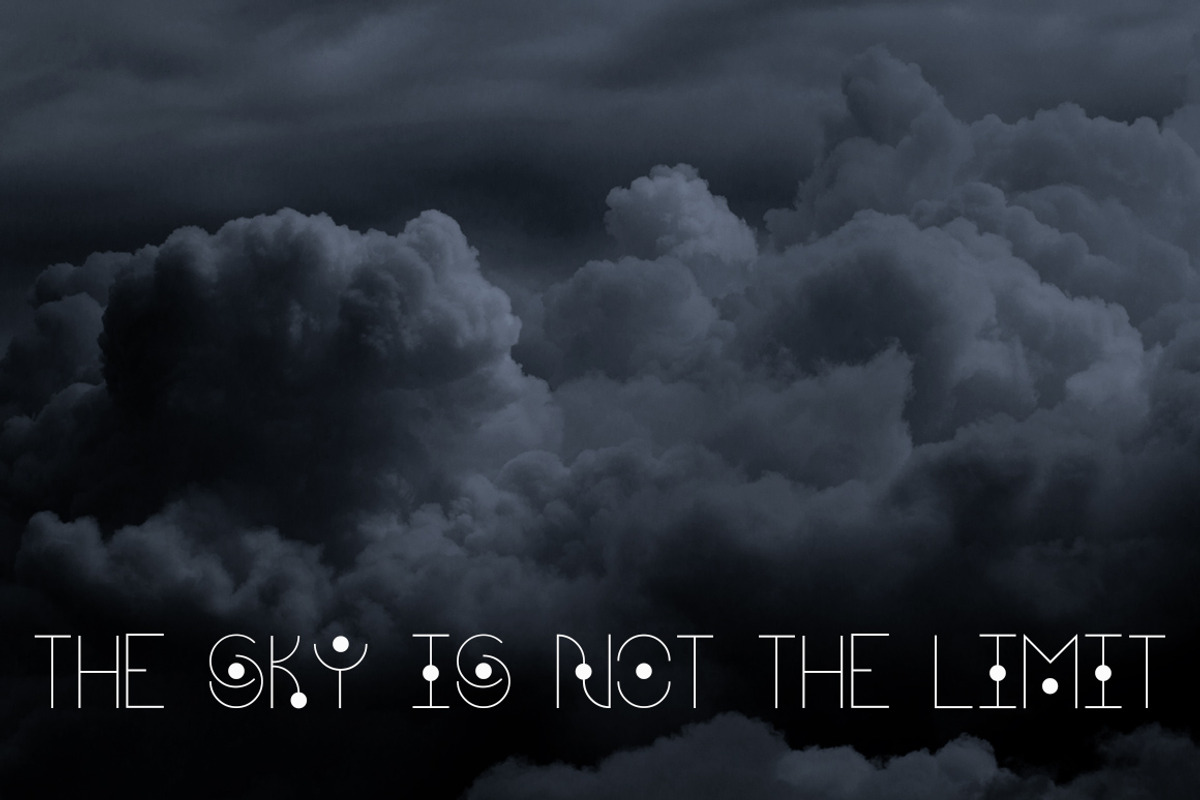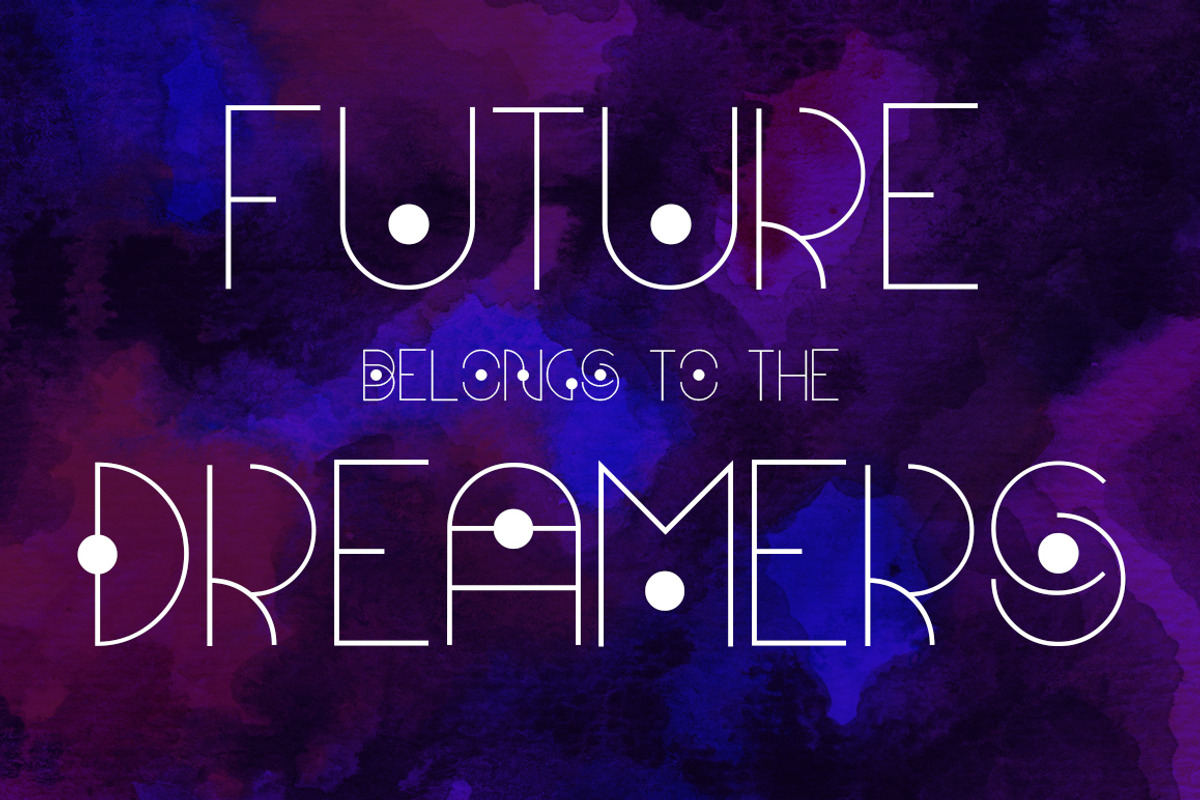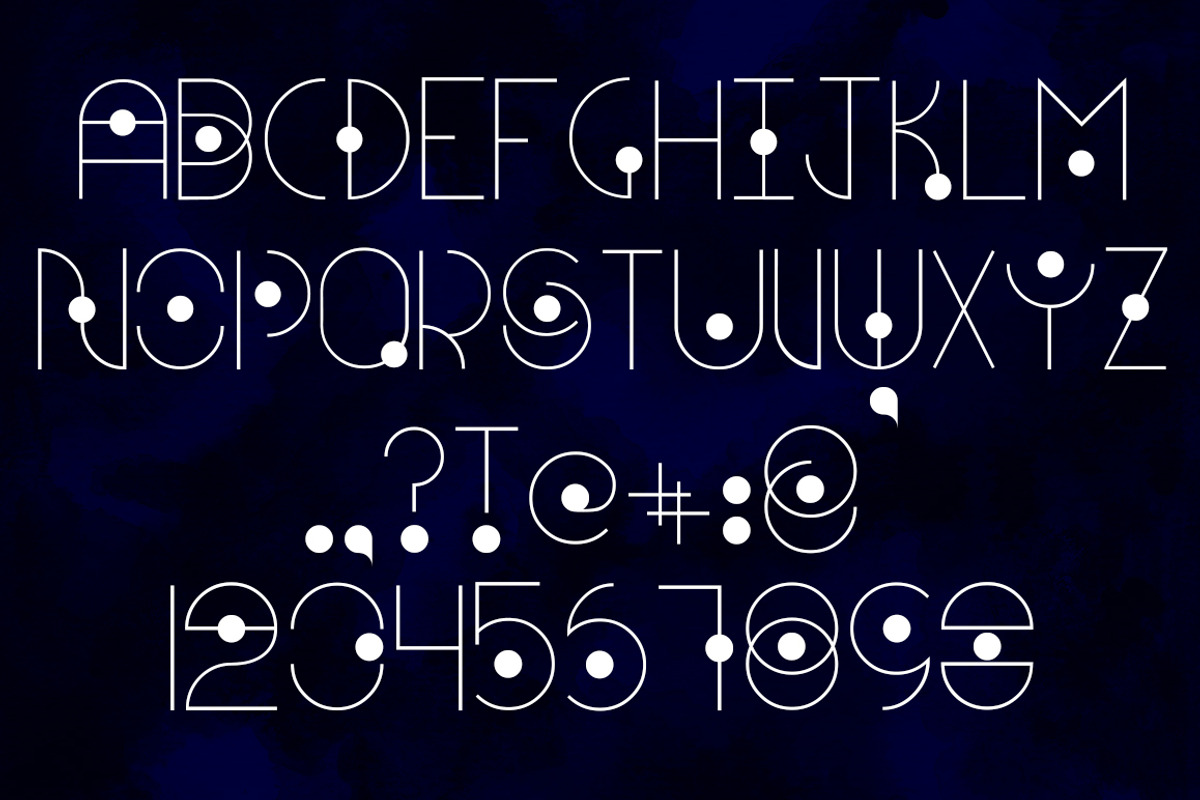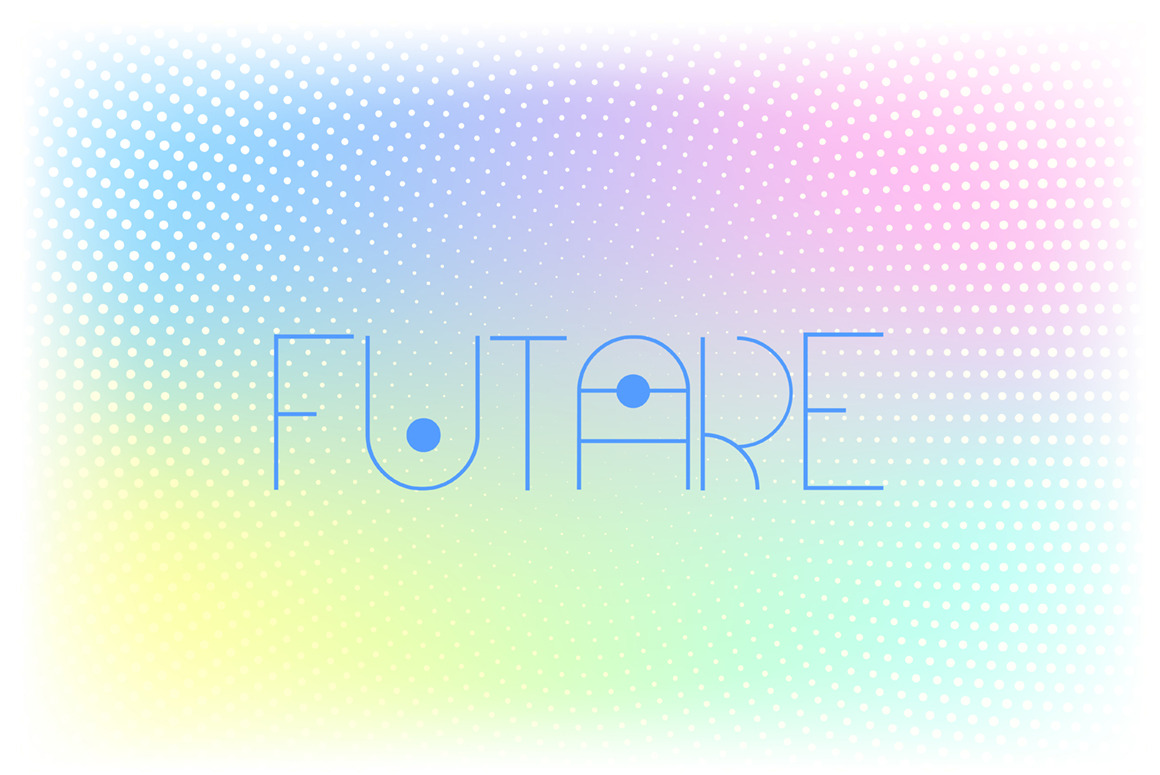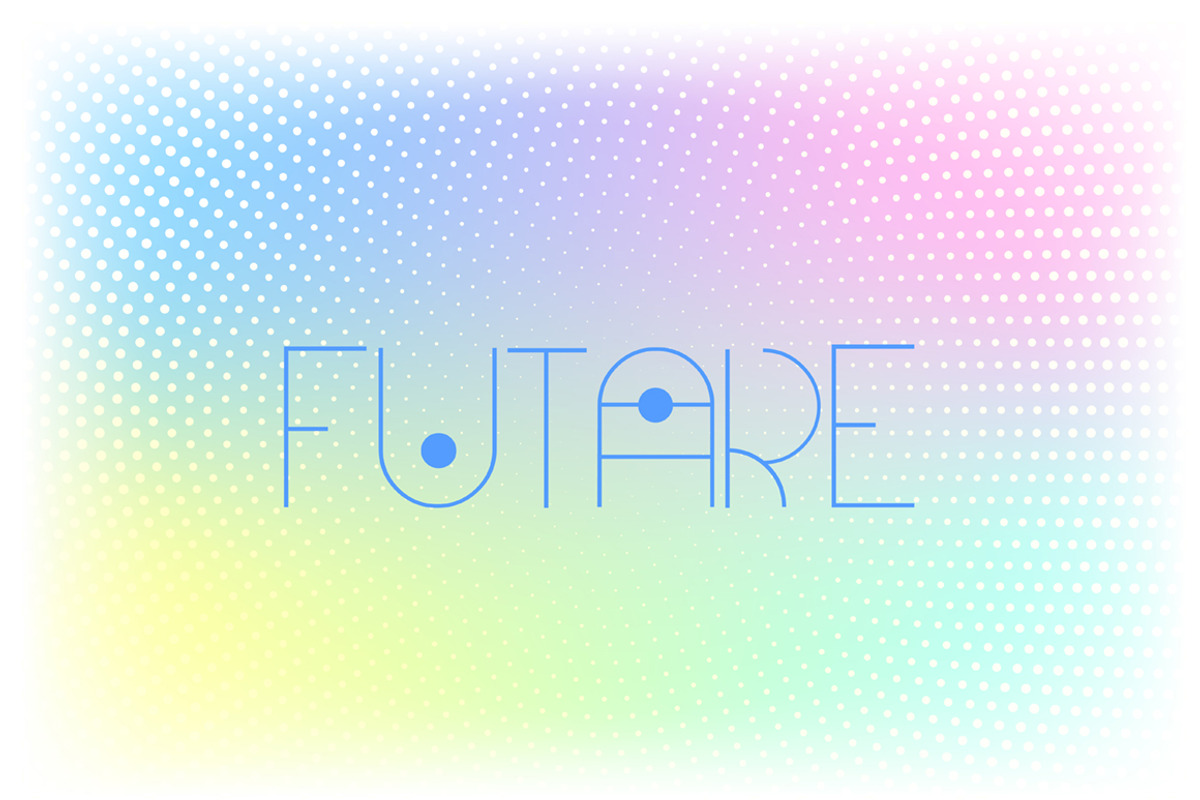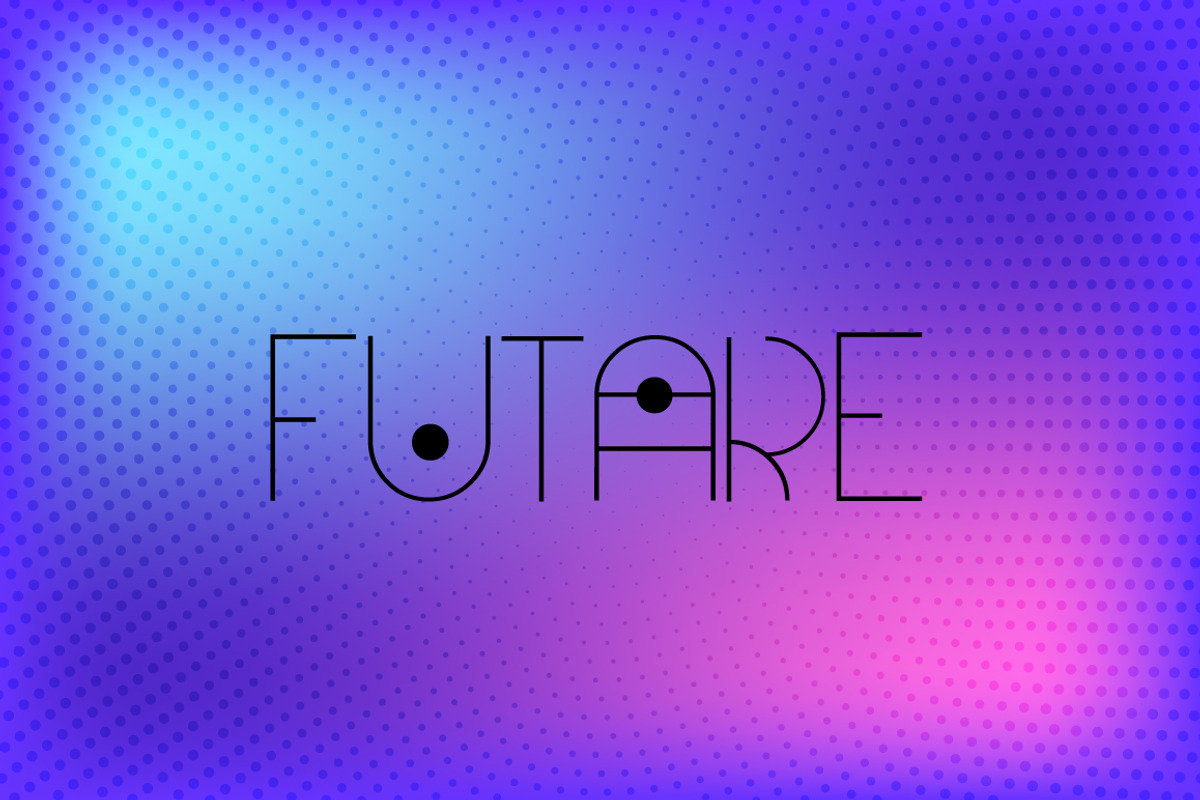
Futare - Futuristic Display Font
Futare - the clean and minimalistic capital font, perfect for any futuristic design project! It is specially made for inter-galaxy travels, spaceships and cosmic adventures!
This font is all-caps, containing A-Z letters, numbers and wide range of punctuation signs.
You can use it for:
- branding & logos
- futuristic posters
- fantastic book covers
- any other kind of modern design!